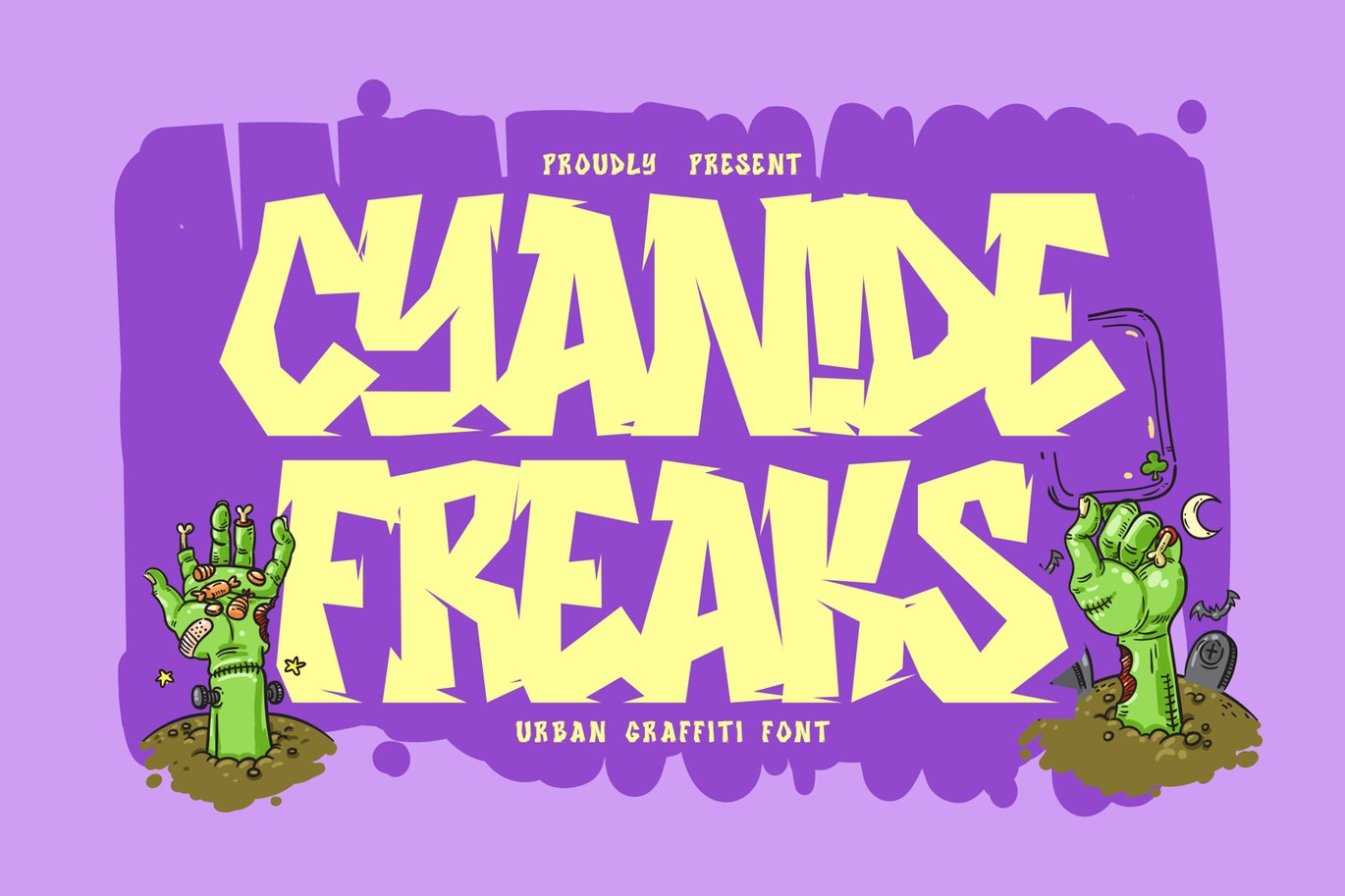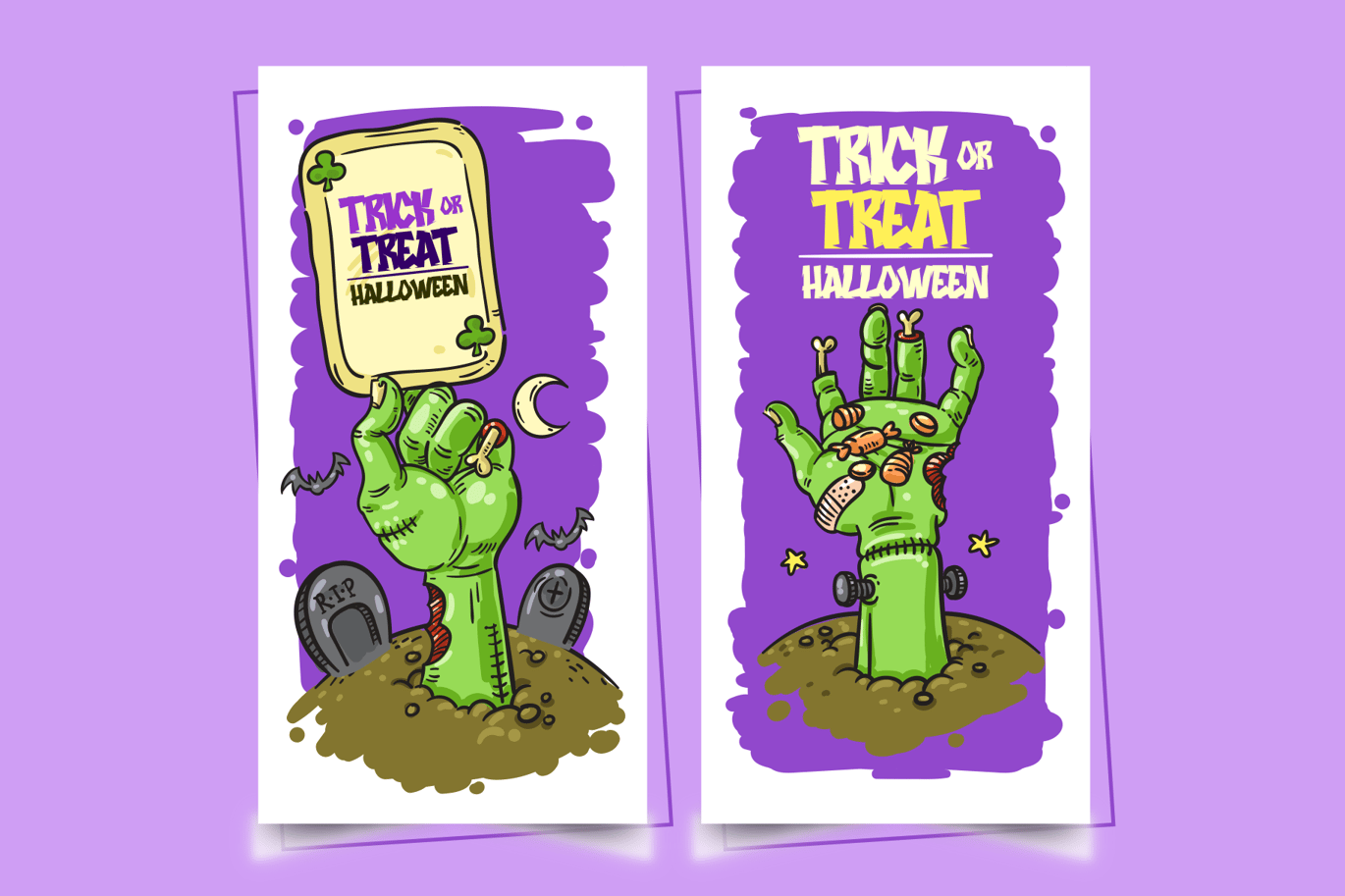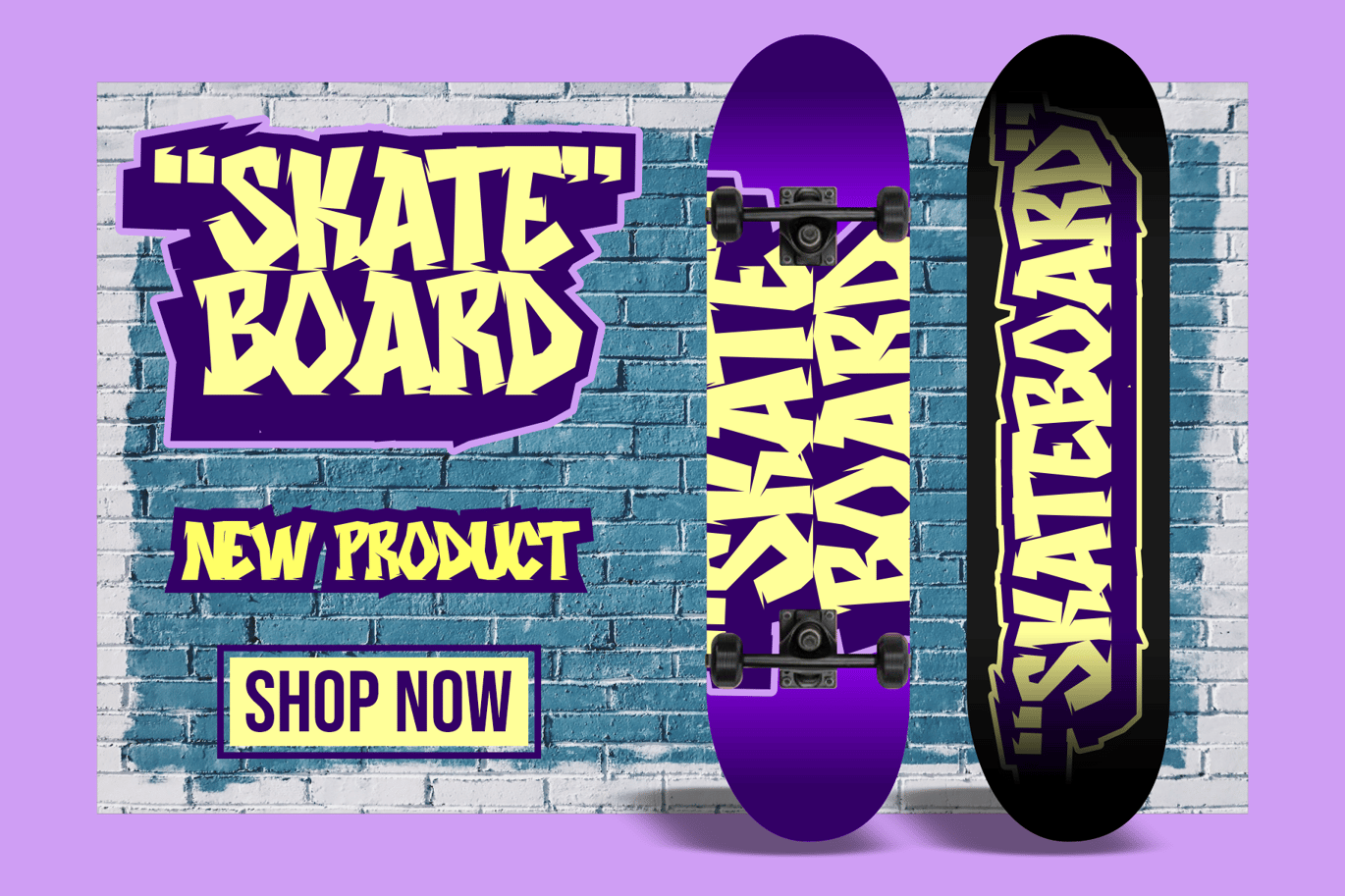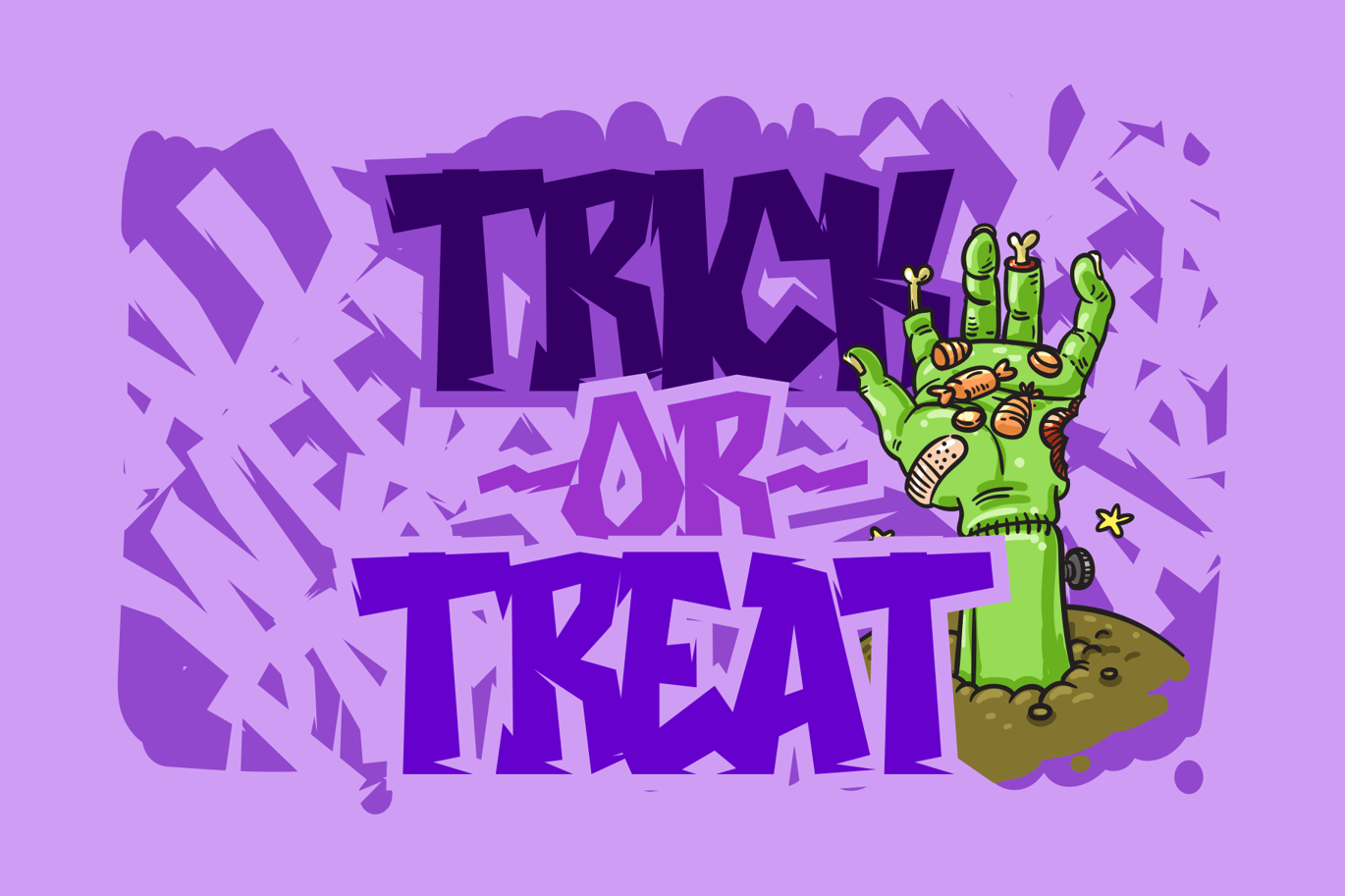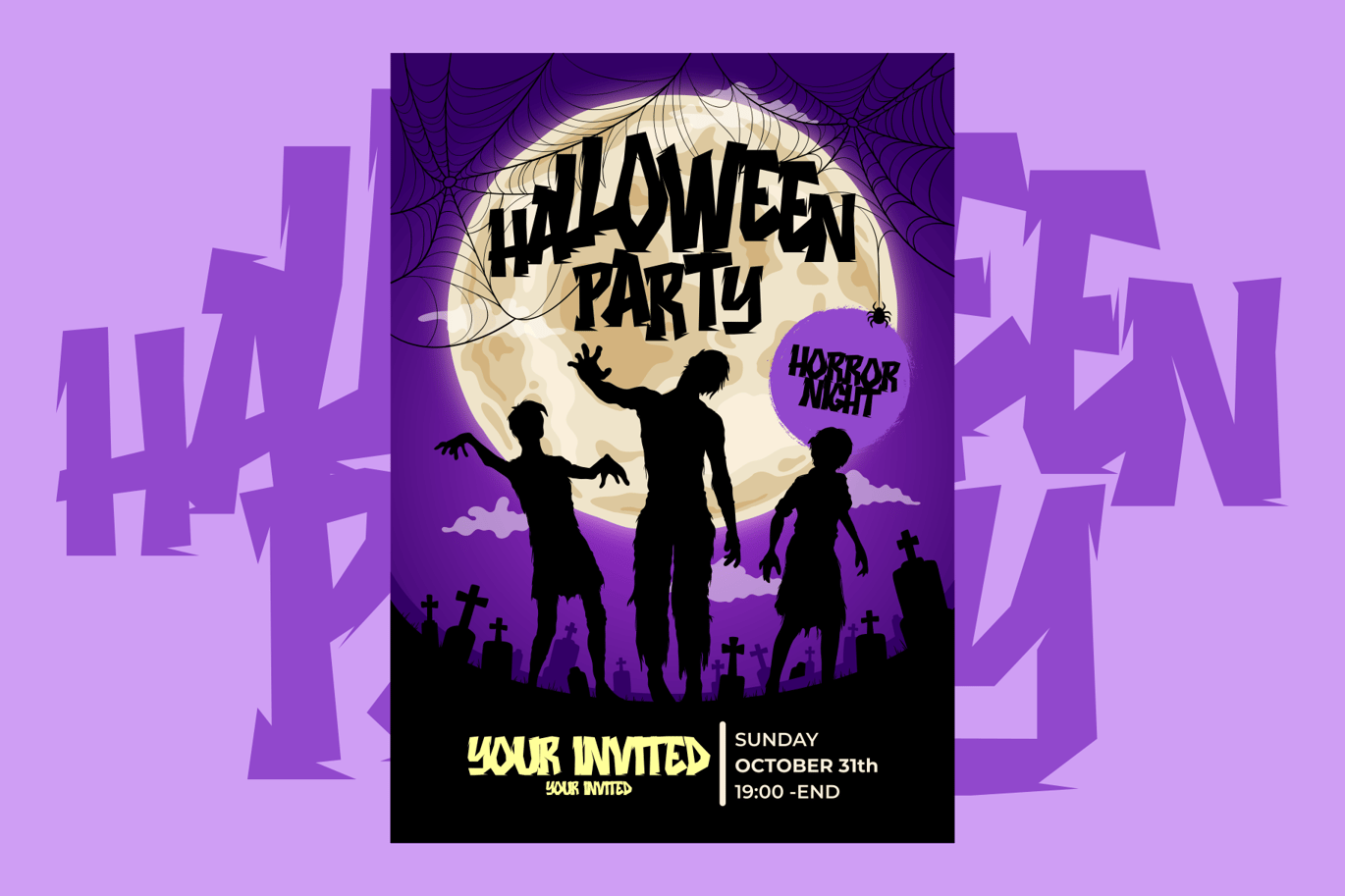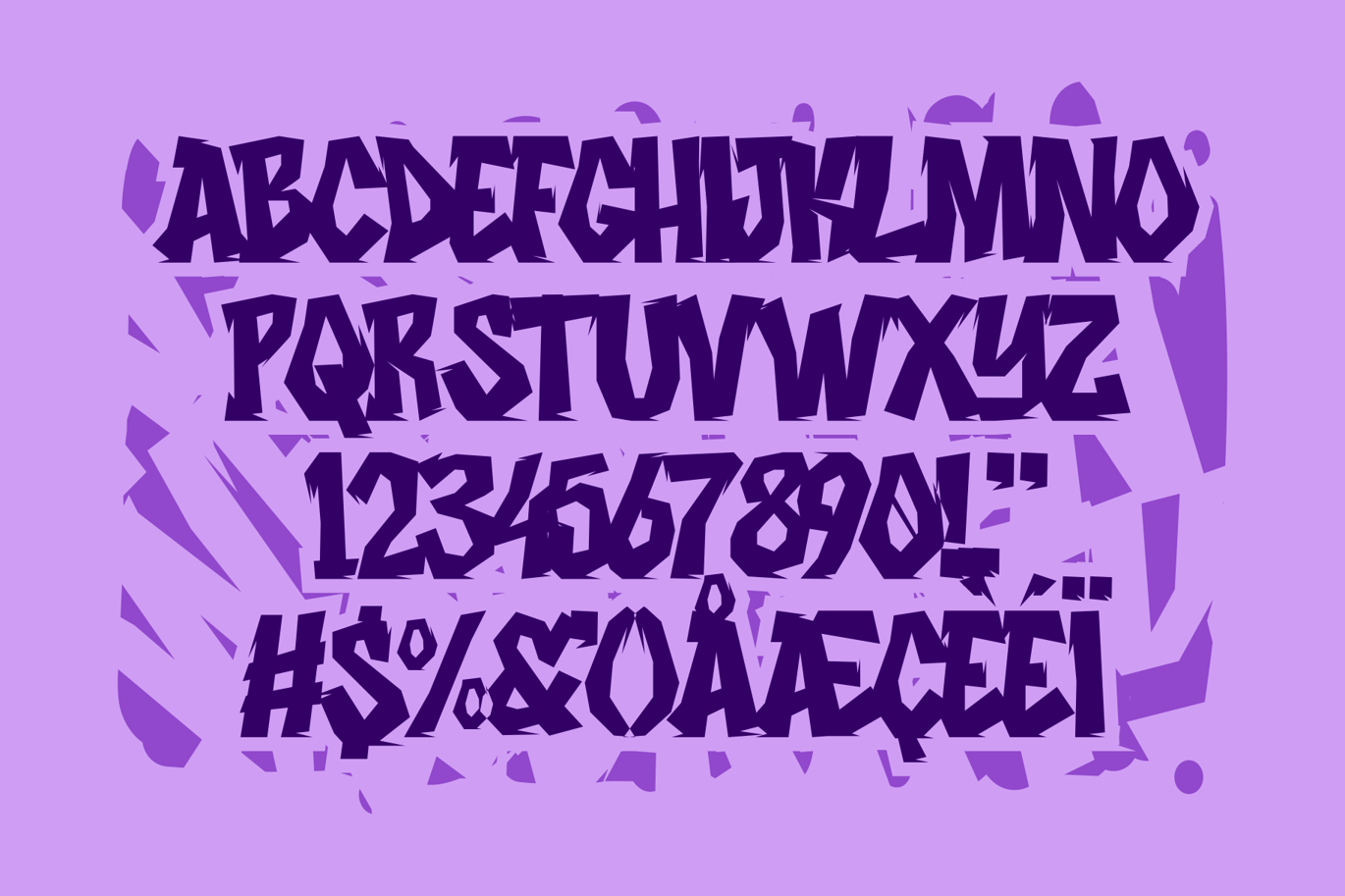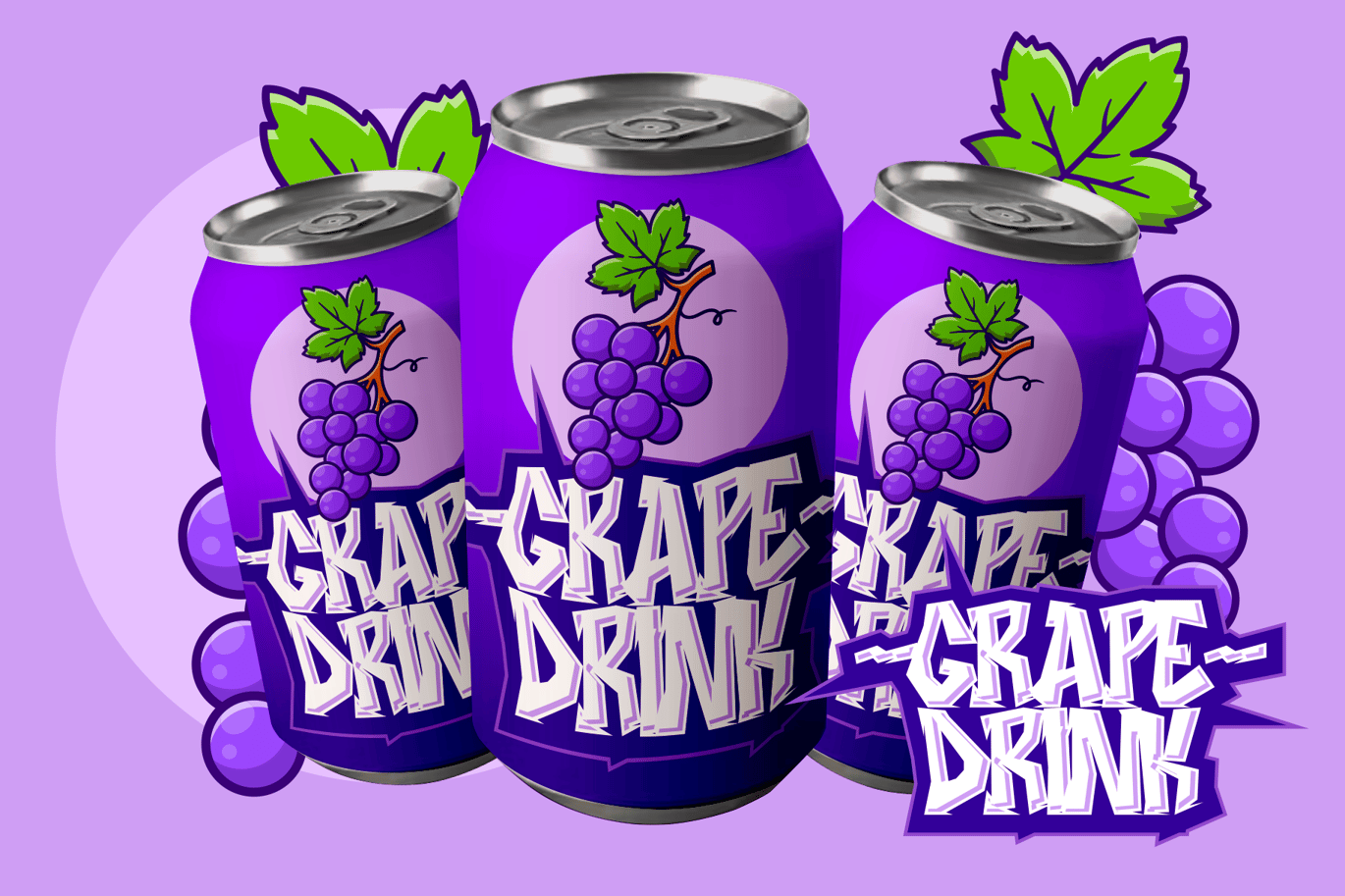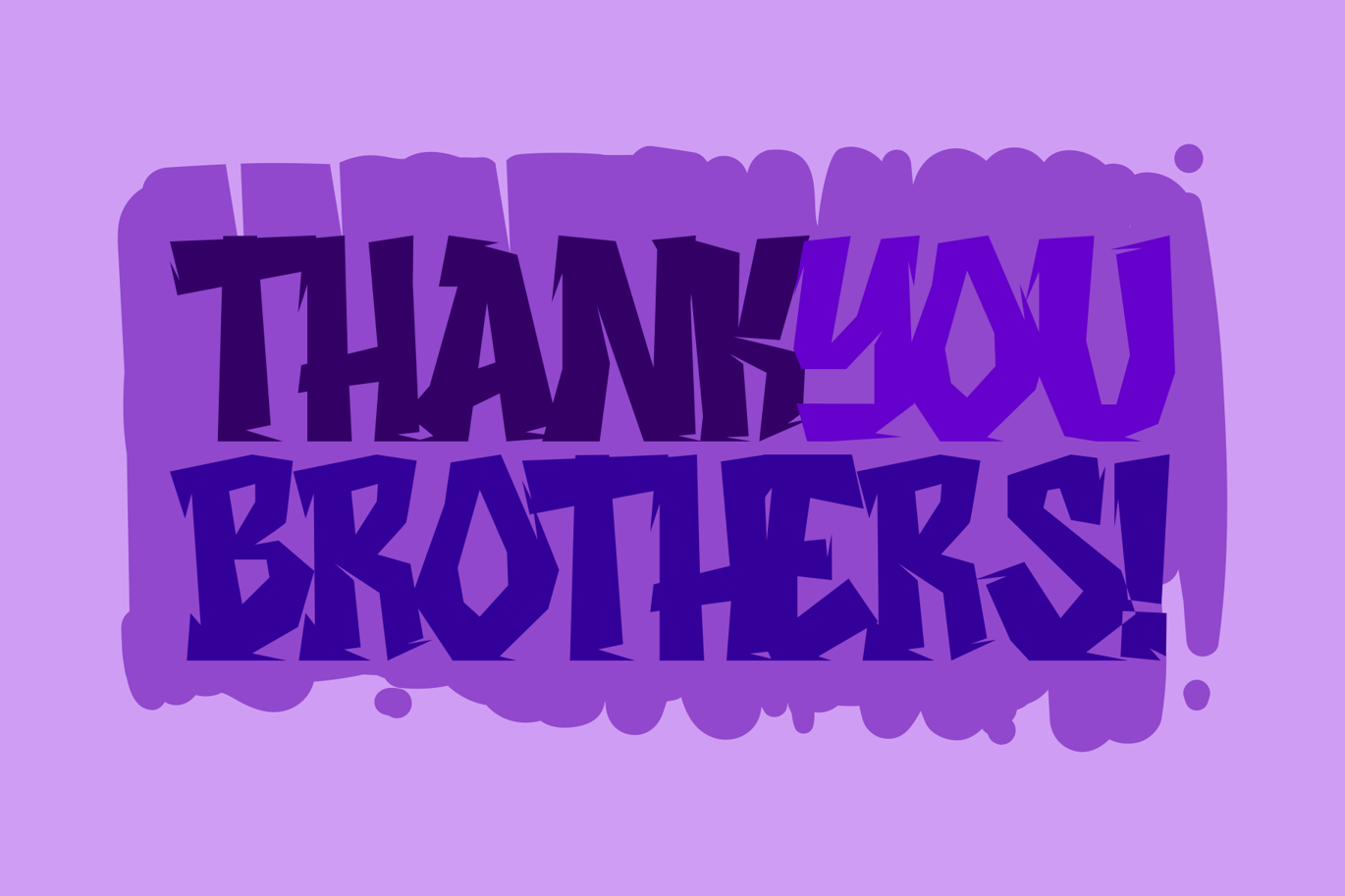
Cyanide Freaks – Urban Graffiti Font
Cyanide Freaks is a raw and edgy urban graffiti font that personifies streetwise attitude and rebellion. Its bold, expressive lettering captures the essence of underground art and is perfect for projects that demand a bold, unapologetic urban style. Whether it’s for posters, street art, or designs that require an unfiltered and gritty aesthetic, Cyanide Freaks adds a fierce, urban vibe to your typography, leaving a lasting impact on the streets and screens alike.